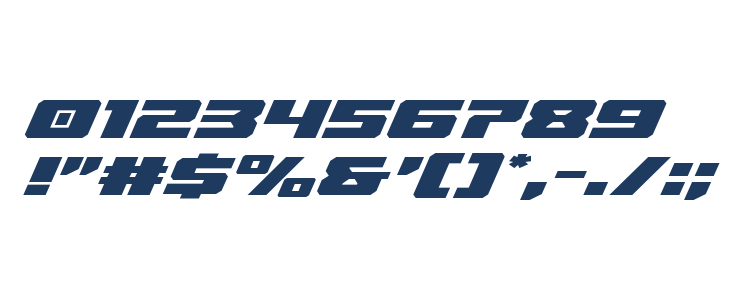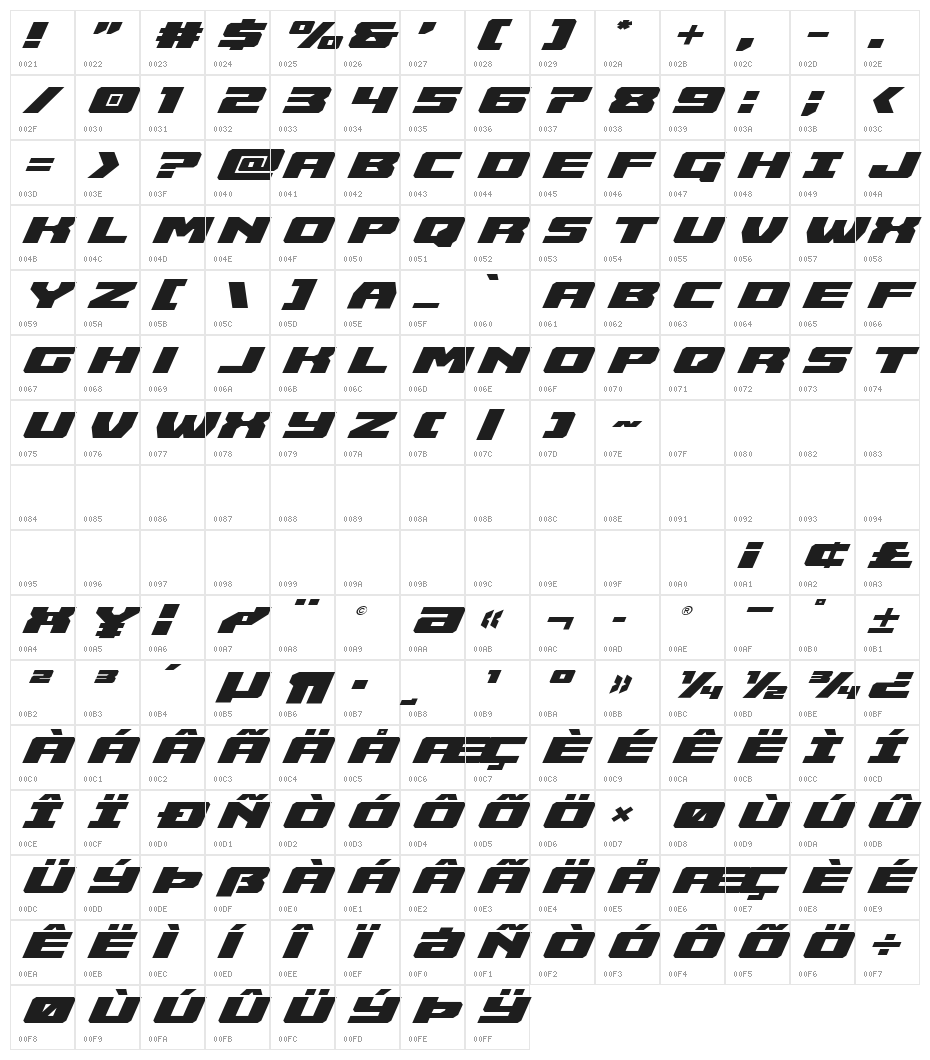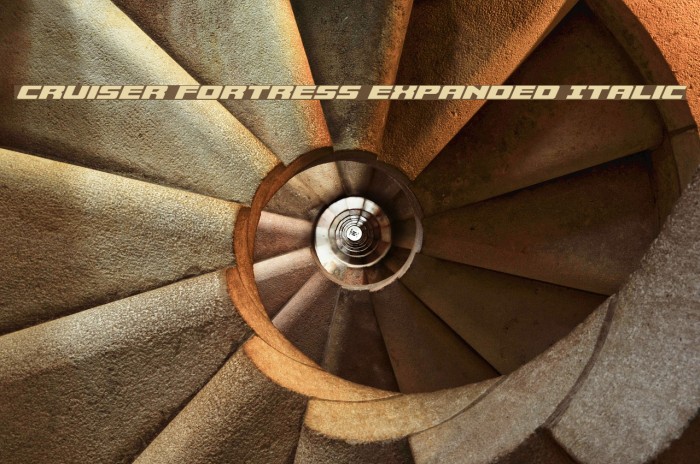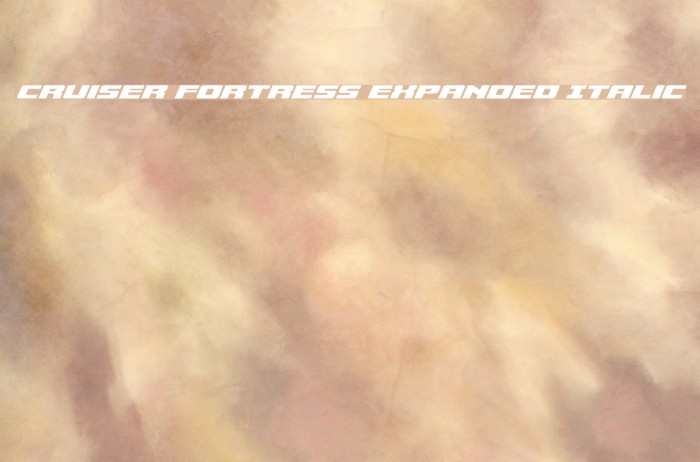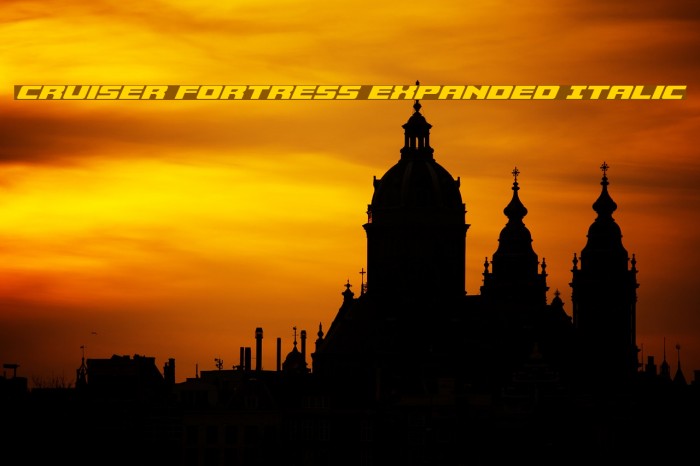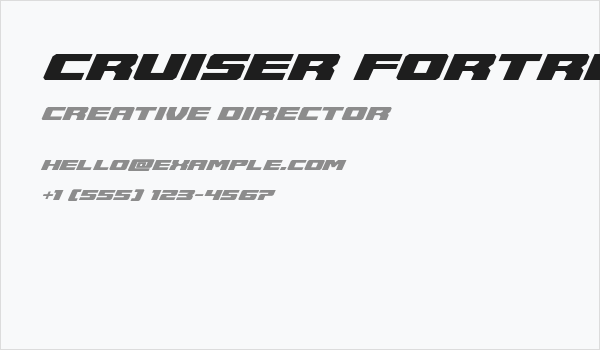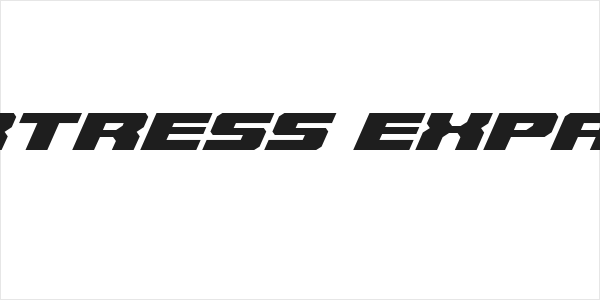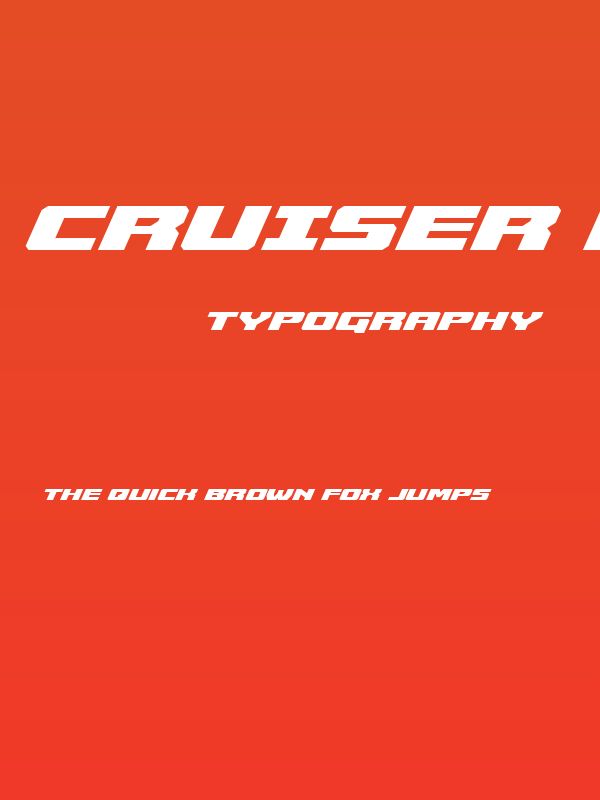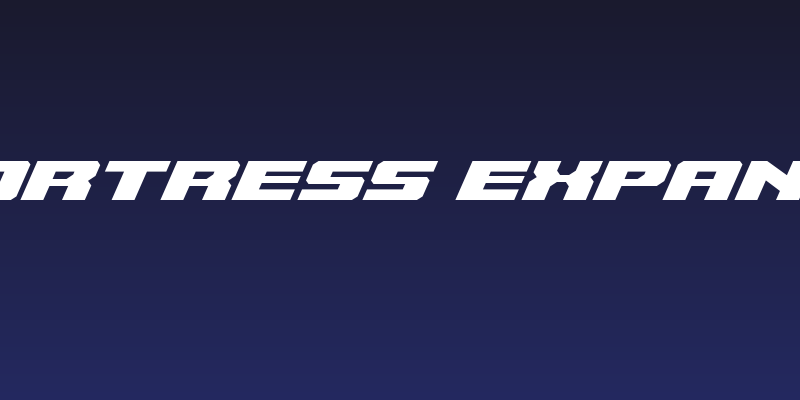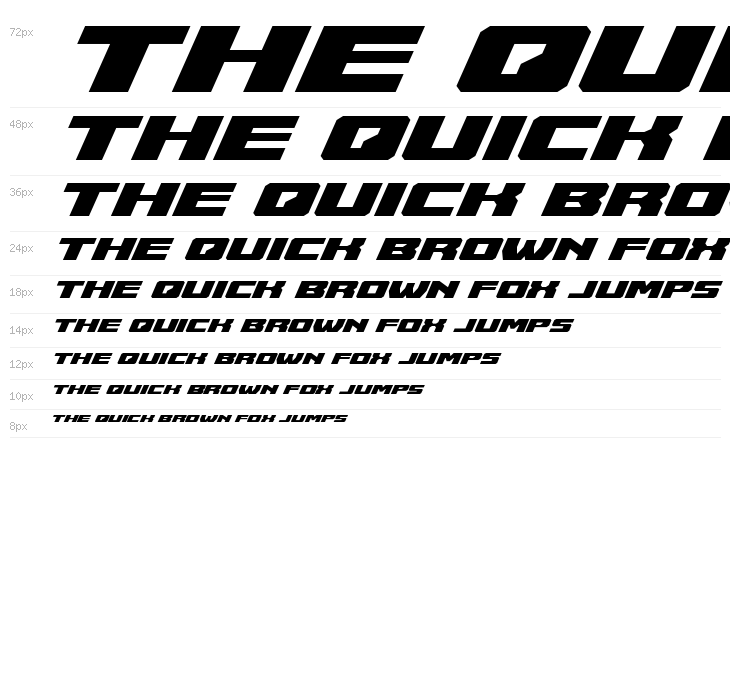
Cruiser Fortress Expanded Italic Font
Cruiser Fortress Expanded Italic Description
This font features a bold and dynamic design with an italic slant, giving it a sense of motion and energy. The characters are expanded, providing a wide and commanding presence. The angular and geometric shapes of the letters contribute to a futuristic and robust appearance. The font maintains a consistent stroke thickness, ensuring readability while emphasizing its boldness. The numerals and special characters follow the same stylistic approach, making them cohesive with the alphabet. This font is ideal for projects that require a strong and impactful visual statement.
| Proposed Projects | Ideal for sports branding, video game titles, automotive advertisements, and sci-fi themed designs. |